50 Best Wedding Font Collection Picks for Invitations & Branding in 2026
As a designer, I believe typography plays a vital role in creating beautiful and memorable wedding experiences. This collection of 50 best wedding fonts for invitations and branding in 2026 features carefully selected typefaces that I personally use to craft elegant, romantic, and timeless wedding designs.
From graceful script fonts and modern calligraphy to sophisticated serif typefaces, each selection was chosen for its ability to enhance wedding stationery and luxury bridal branding. These fonts work beautifully for invitations, save-the-dates, menus, signage, monograms, wedding websites, and complete stationery suites.
I carefully curate typography that balances elegance and readability, helping every wedding project feel unique, refined, and visually cohesive. The right font can transform a simple design into a meaningful keepsake that captures the atmosphere and emotion of a special day.
Handmade Signature Wedding Font
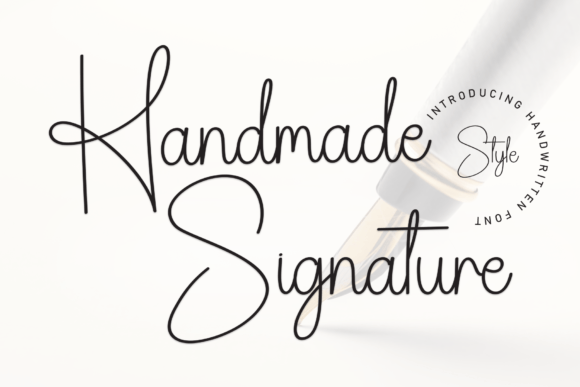
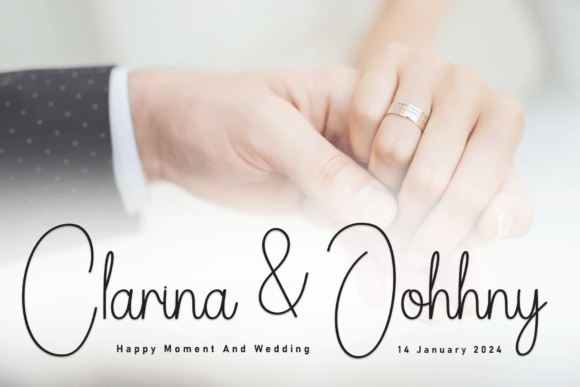
Handmade Signature is an elegant handwritten font that beautifully captures the natural flow of a personal signature. I love using it for logos, branding, wedding invitations, packaging, social media graphics, and personalized stationery because its graceful strokes create a refined and authentic look. The sophisticated signature-style lettering adds warmth, individuality, and a handcrafted touch, making every design feel polished, stylish, and uniquely memorable.
Andalucia Wedding Font
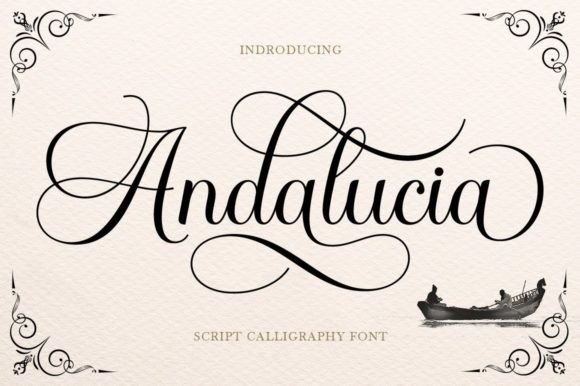
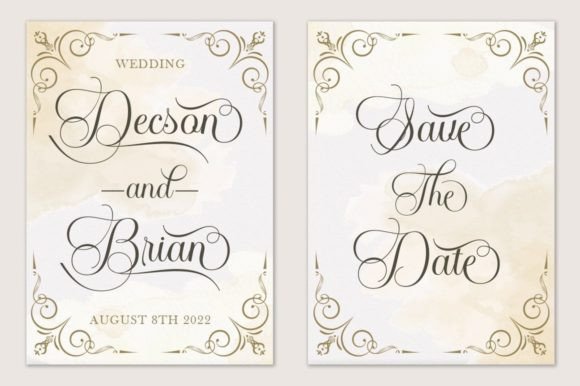
Andalucia is a graceful calligraphic script font that blends the elegance of Copperplate calligraphy with the warmth of modern hand lettering. I enjoy using it for wedding invitations, luxury branding, logos, packaging, fashion projects, menus, stationery, greeting cards, and editorial designs because its refined letterforms create a sophisticated and timeless look. The beautiful alternate characters and flowing script add versatility and charm, making every design feel feminine, elegant, and effortlessly luxurious.
Breathine Wedding Font
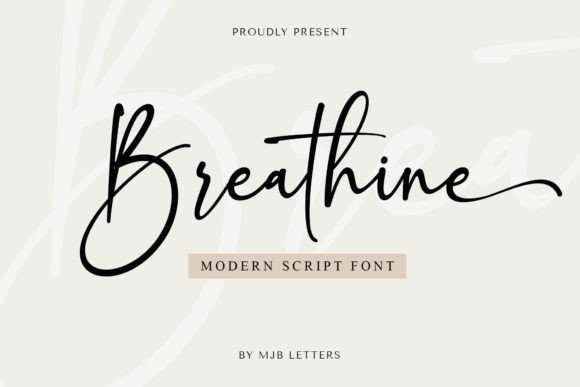
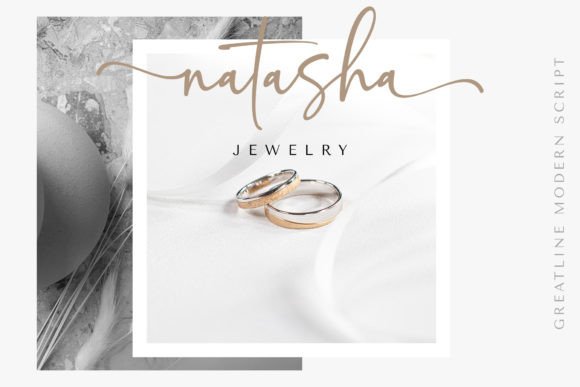
Breathine is a magical script font that combines elegant calligraphy with a graceful handwritten style. I love using it for Instagram graphics, wedding invitations, branding, DIY crafts, greeting cards, logos, and social media content because its flowing letterforms add a refined and artistic touch. The delicate curves and sophisticated design make every project feel charming, creative, and effortlessly beautiful, transforming simple ideas into eye-catching works of art.
Bailenson Wedding Font
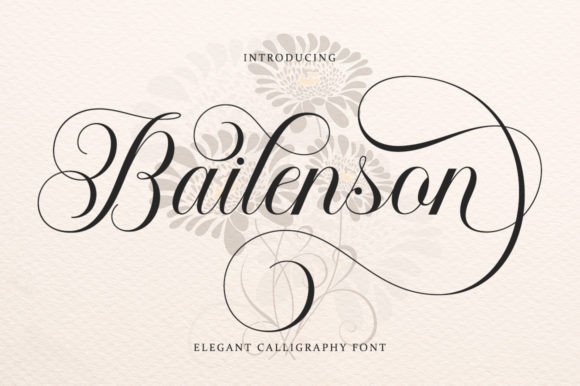
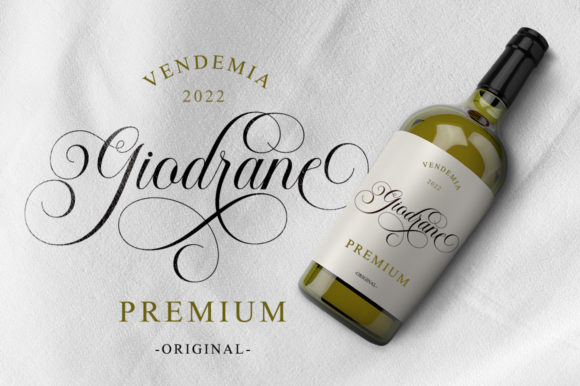
Bailenson is an elegant calligraphic font inspired by classic Italian handwriting and the timeless beauty of ancient manuscripts. I enjoy using it for wedding invitations, branding, logos, business cards, certificates, book covers, greeting cards, and luxury packaging because its refined letterforms create a sophisticated and graceful appearance. The harmonious calligraphic style blends classic tradition with modern versatility, making every design feel formal, elegant, and beautifully timeless.
Dellanor Script Wedding Font
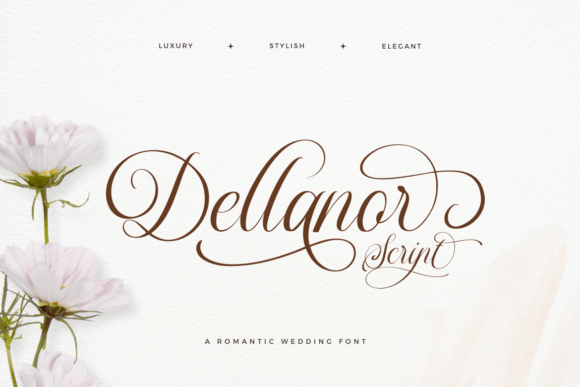
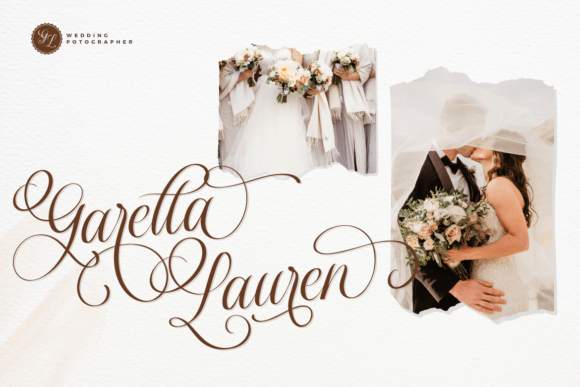
Dellanor Script is a romantic wedding font that combines luxurious elegance with beautifully flowing calligraphy. I love using it for wedding invitations, event signage, luxury branding, greeting cards, logos, and sophisticated stationery because its graceful letterforms create a timeless and romantic atmosphere. The extensive collection of alternate characters allows for endless customization, making every design feel unique, refined, and effortlessly elegant.
Enchanting Script Wedding Font
Enchanting Script is a timeless handwritten font that combines graceful lettering with a warm, elegant personality. I enjoy using it for logos, branding, inspirational quotes, wedding stationery, packaging, and social media graphics because its flowing strokes create a sophisticated yet personal feel. The unique character of every letter adds charm and authenticity, making each design look refined, memorable, and beautifully handcrafted.
Brown Carolina Duo Wedding Font
Brown Carolina is a sophisticated font duo that pairs a modern sans serif with an elegant script, creating the perfect balance of contemporary style and timeless charm. I love using it for wedding invitations, branding, business cards, magazine layouts, packaging, and social media graphics because the two complementary typefaces work beautifully together. The script font’s stylish alternates and ligatures offer endless customization, while the clean sans serif adds versatility and professionalism, making every design feel polished, modern, and effortlessly elegant.
Ashley Southine Wedding Font
Ashley Southine is an elegant handwritten script font that captures the beauty and warmth of authentic handcrafted lettering. I enjoy using it for wedding invitations, greeting cards, logos, branding, packaging, and social media graphics because its flowing strokes create a personal yet sophisticated feel. The natural curves and refined handwritten style add warmth, charm, and individuality, making every design look graceful, inviting, and beautifully handcrafted.
Belinda Carolyne Wedding Font
Belinda Carolyne is a tasteful calligraphy font featuring elegant swashes and beautiful ligatures that add a romantic touch to any design. Perfect for wedding invitations, branding, logos, quotes, packaging, stationery, and crafting projects, it brings graceful handwritten charm and timeless sophistication to every creative composition.